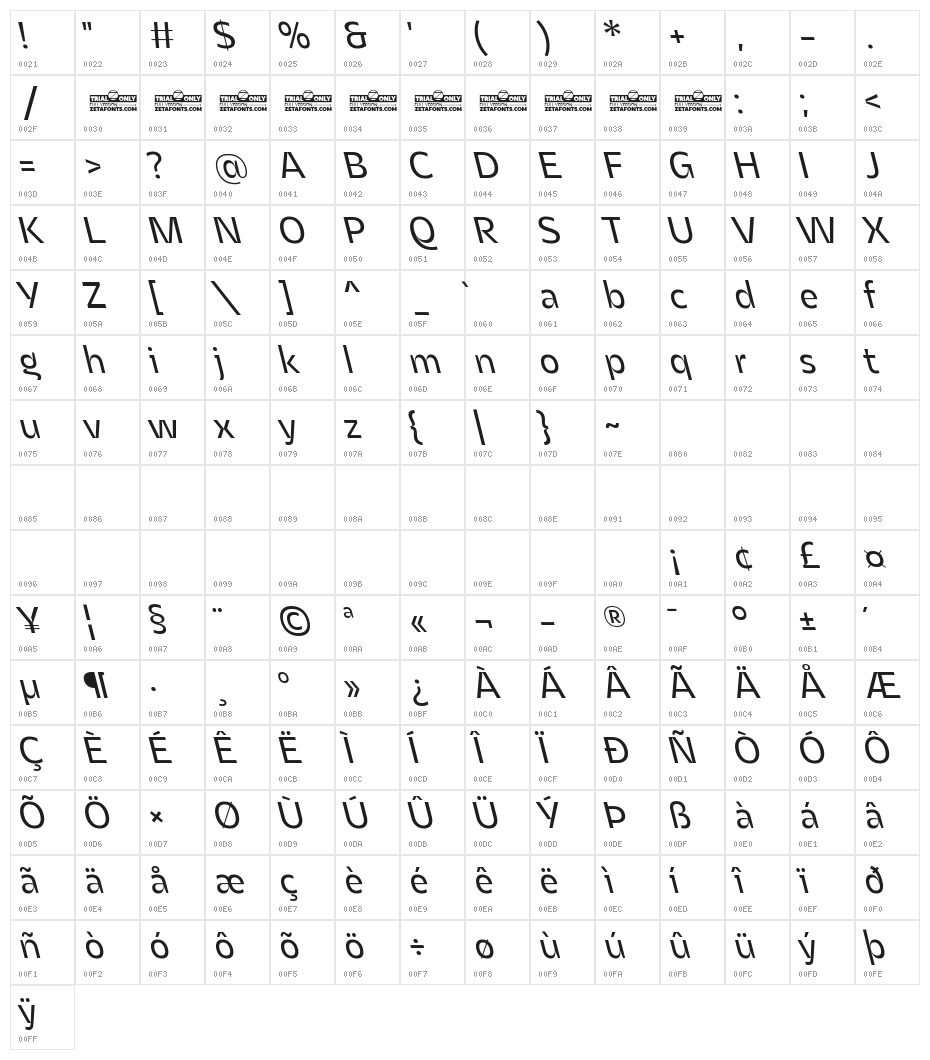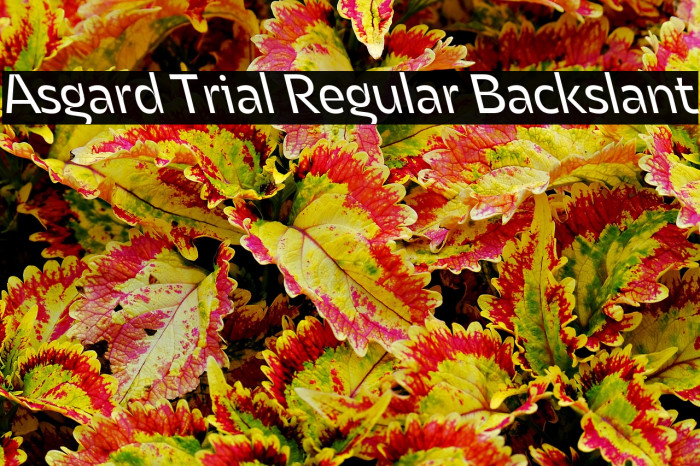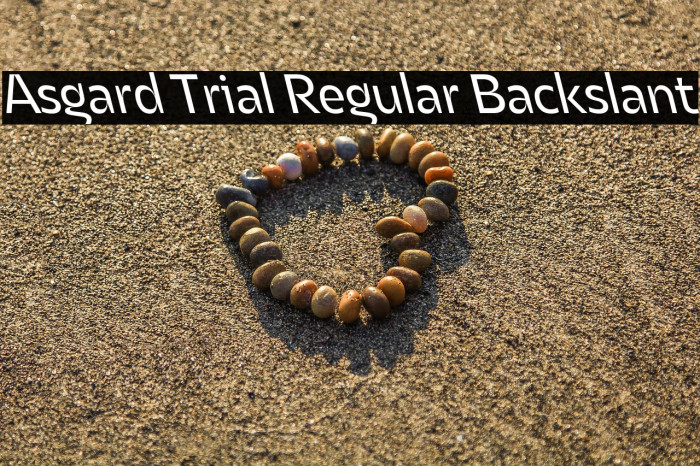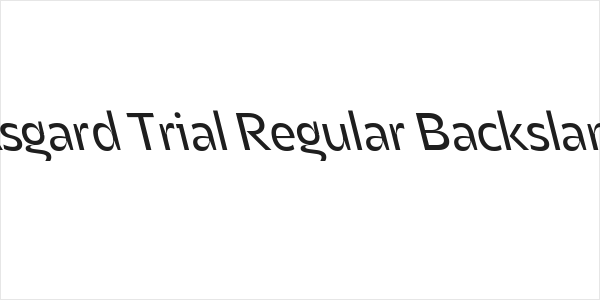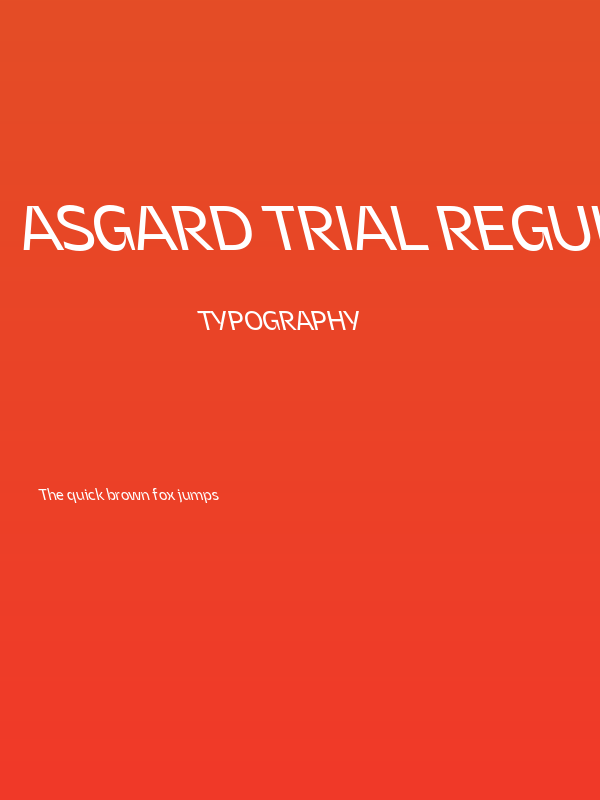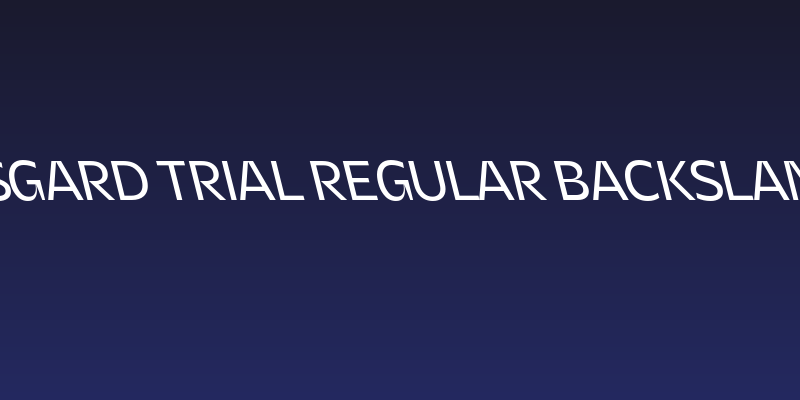
Asgard Trial Regular Backslant Font
Asgard Trial Regular Backslant Description
This font features a unique backslant style, giving it a dynamic and unconventional appearance. The characters are clean and modern, with a slight tilt that adds a sense of movement and energy. The uppercase and lowercase letters maintain a consistent style, with smooth curves and sharp edges. The numerals and special characters are designed to complement the alphabet, ensuring a cohesive look across all text. This font's distinct slant and modern aesthetic make it suitable for creative and contemporary design projects.